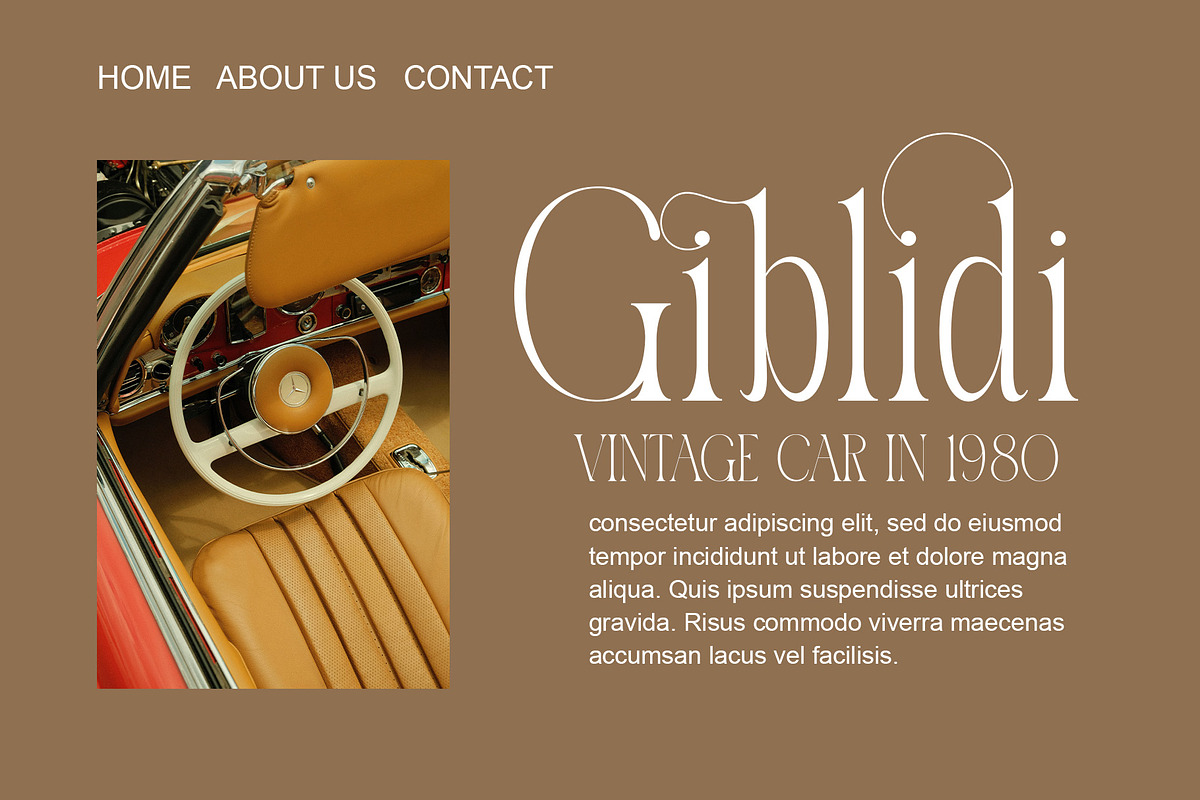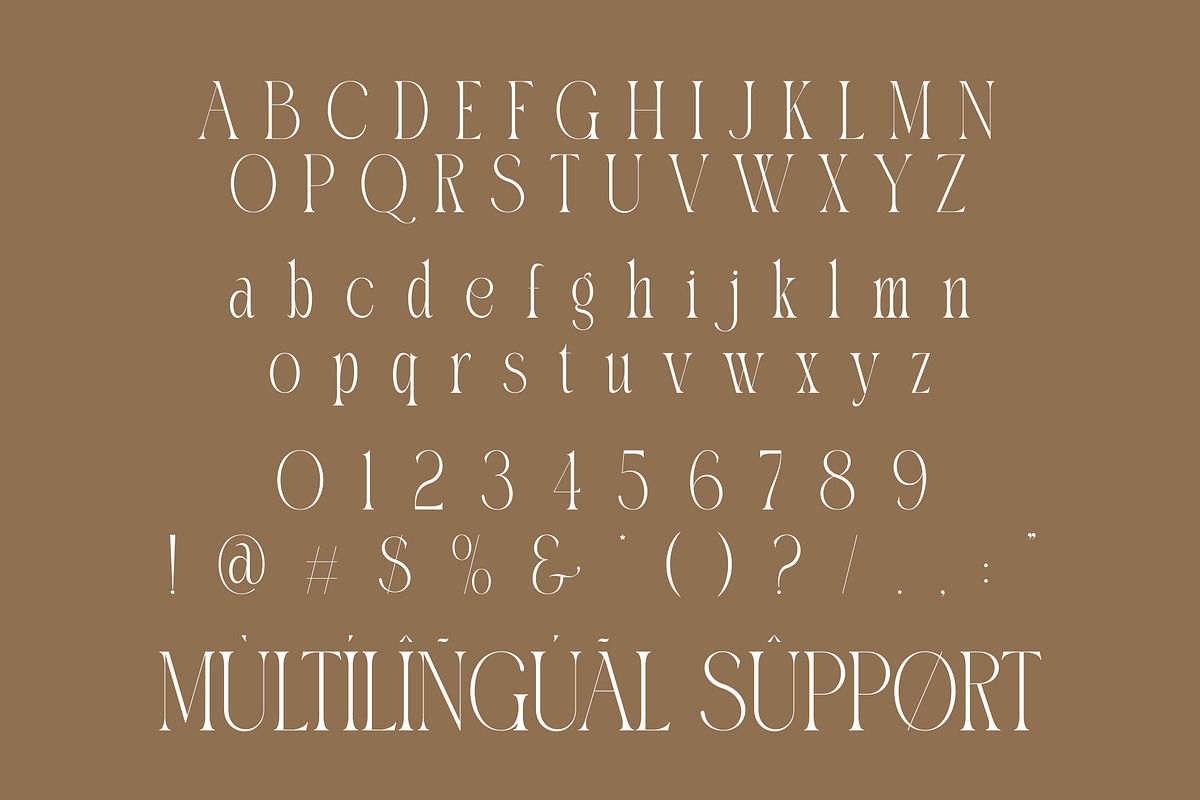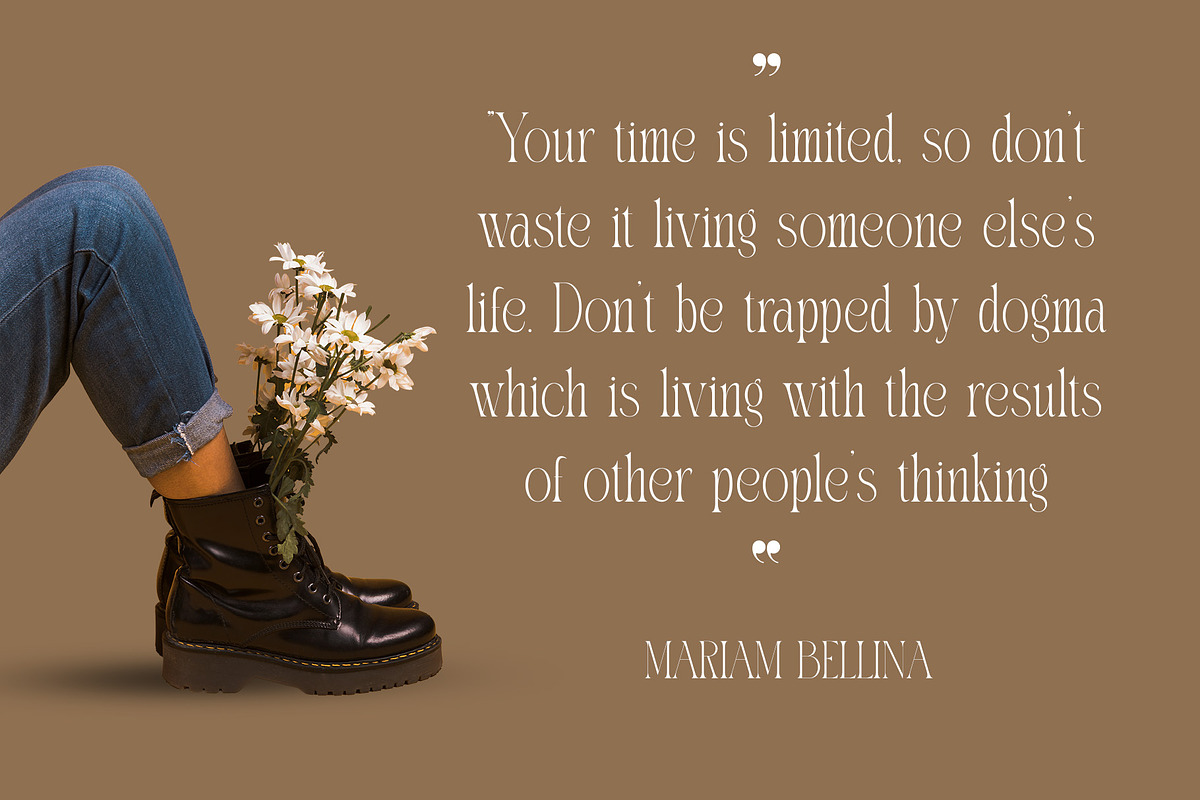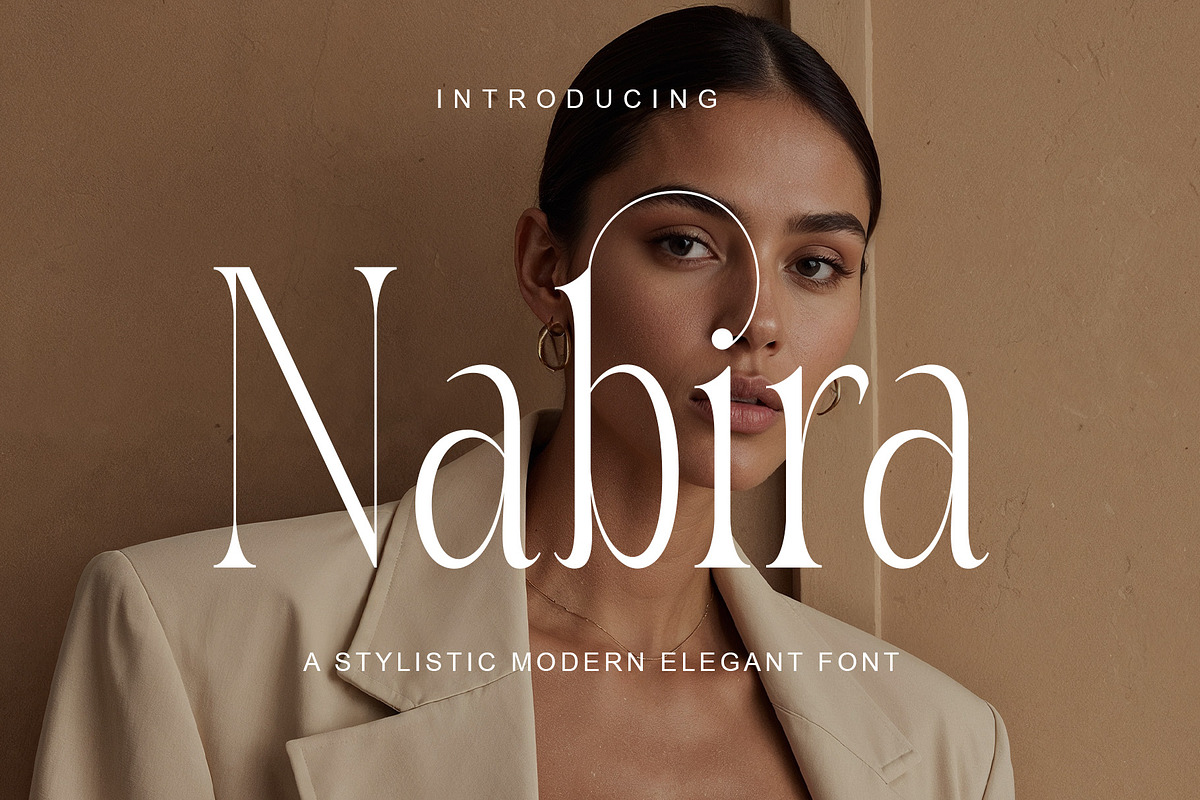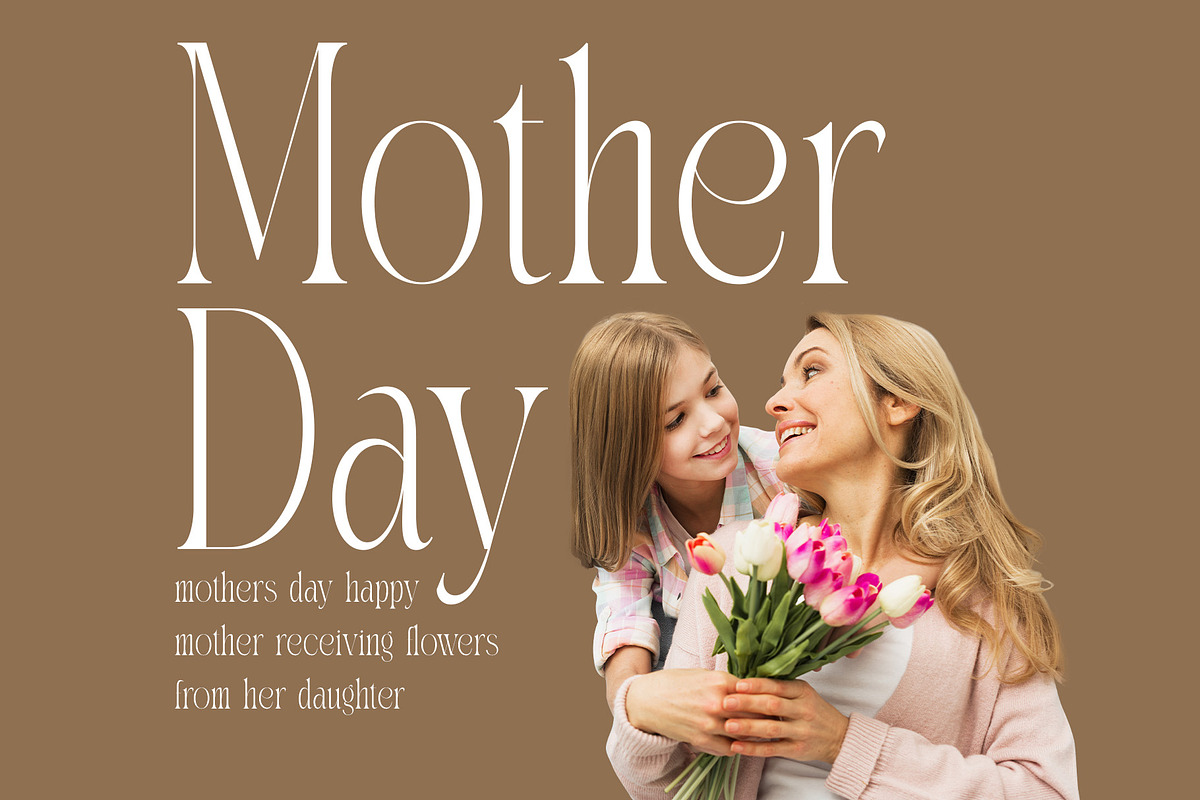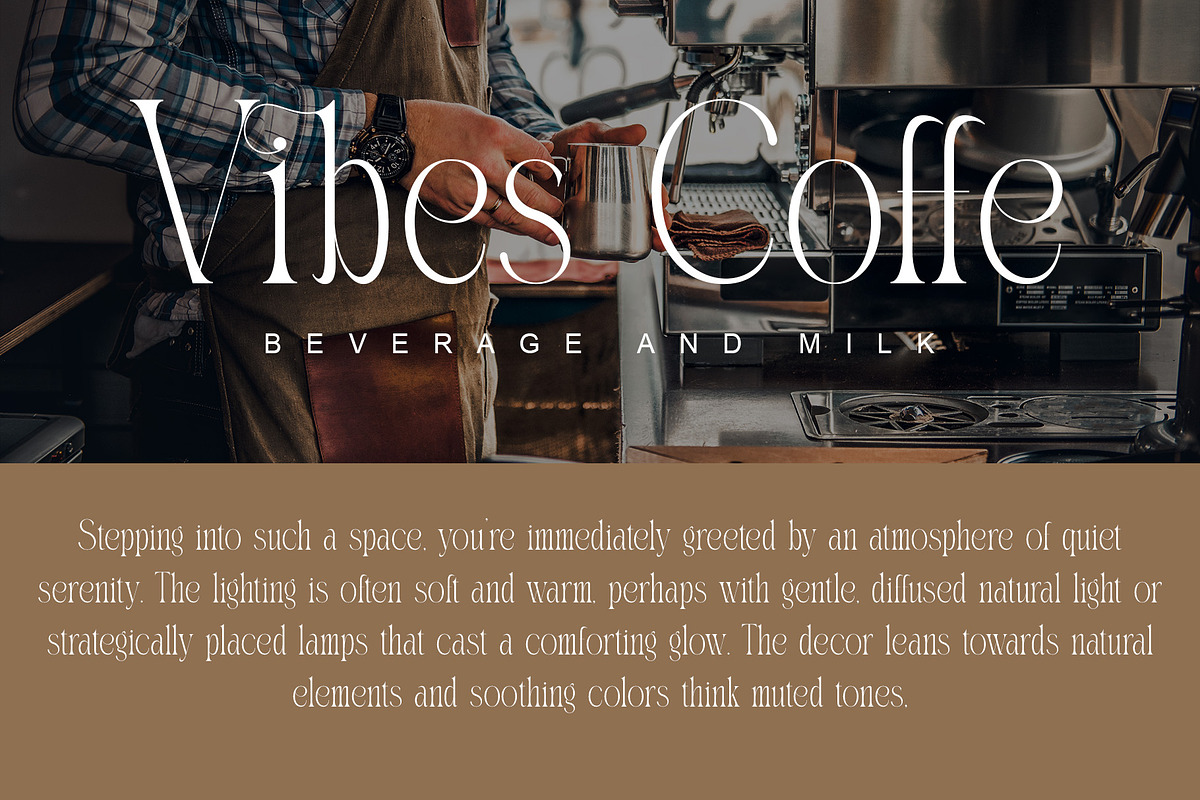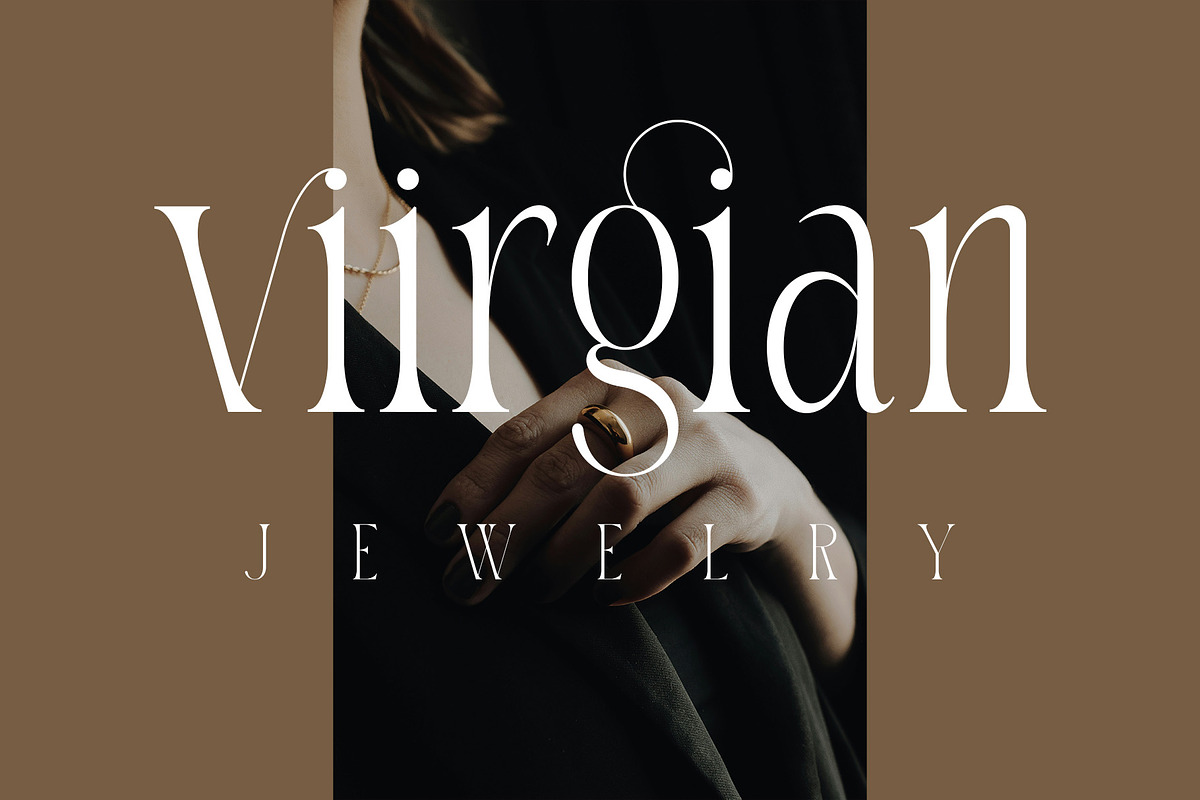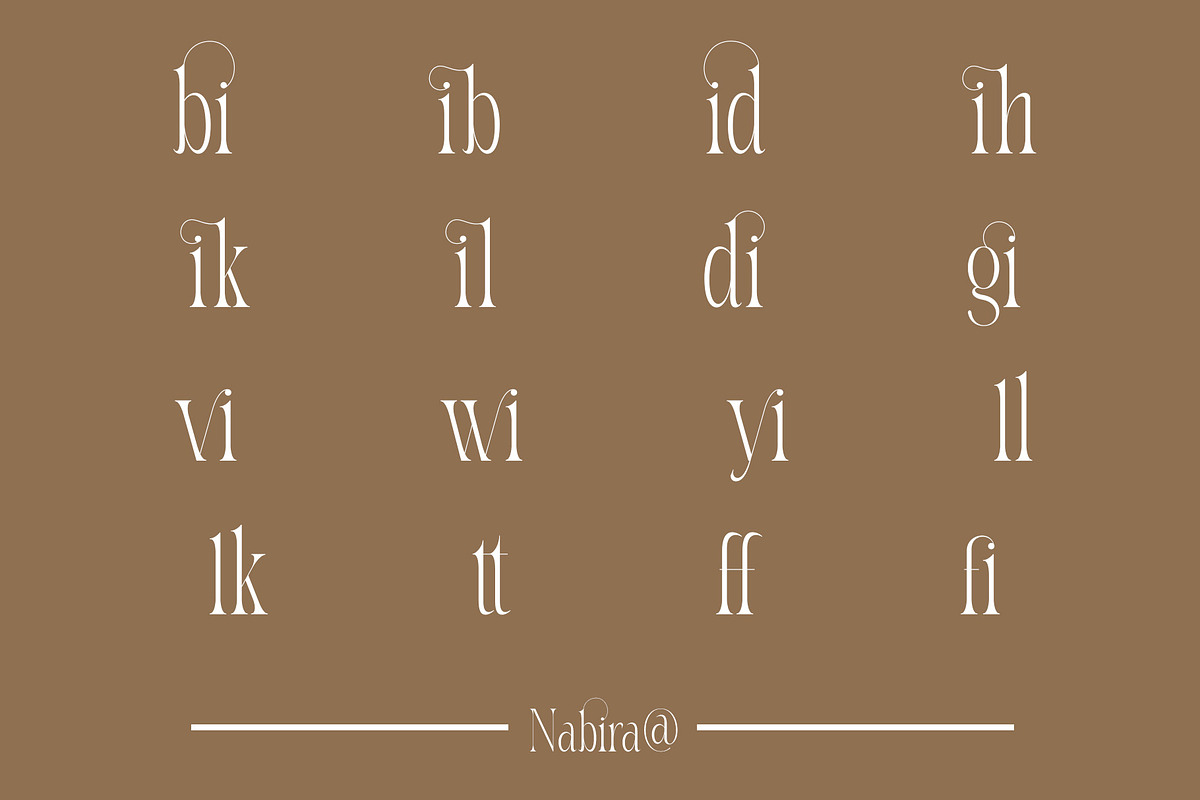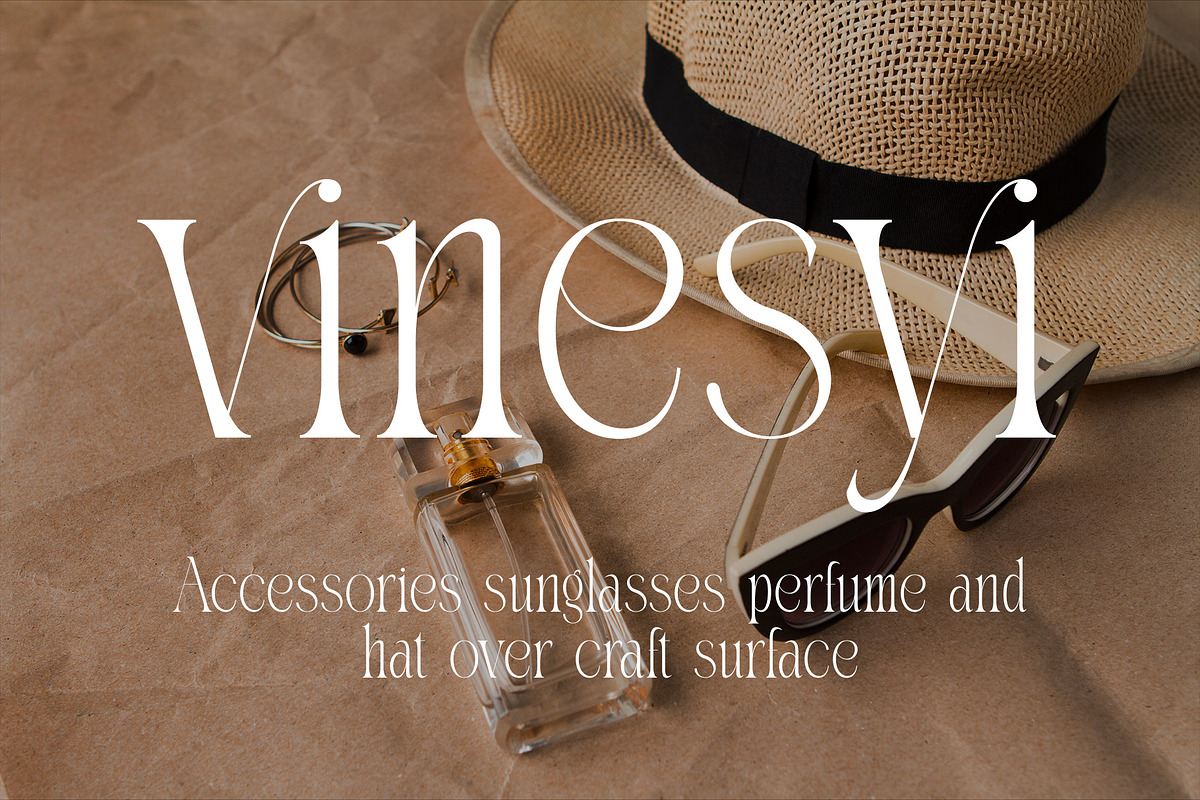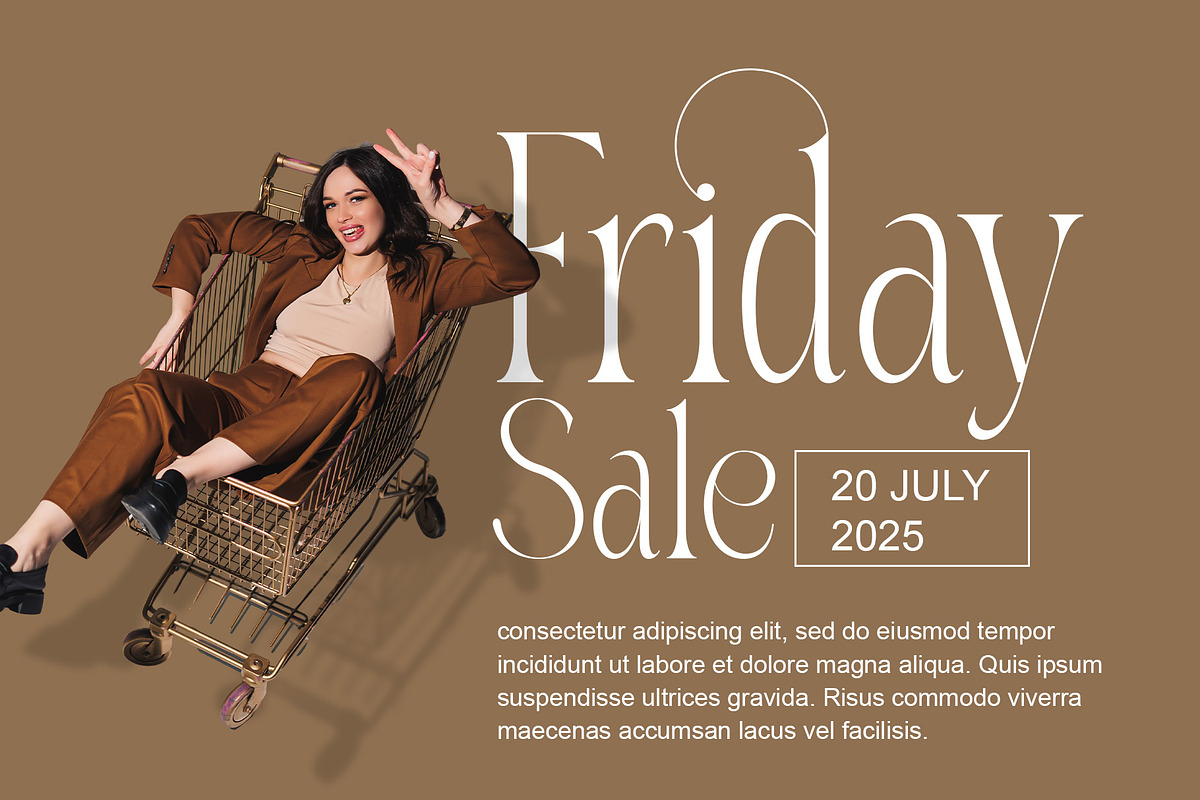
Nabira Modern Elegant Serif
Nabira an elegant ligature serif modern font that evokes the beauty of fresh blooms and timeless elegance. With its bold yet refined ligatures, Nabira stands out as a sophisticated and feminine typeface. Perfect for upscale designs, whether for florals, fashion, or high-end branding, Nabira pairs the charm of classic serif styles with a modern twist. Every letter feels intentional, with a soft and graceful presence that elevates any project it touches.
Bring a touch of refinement and natural grace to your work with Nabira. Let this font breathe elegance into your designs, and watch them flourish with style and character.